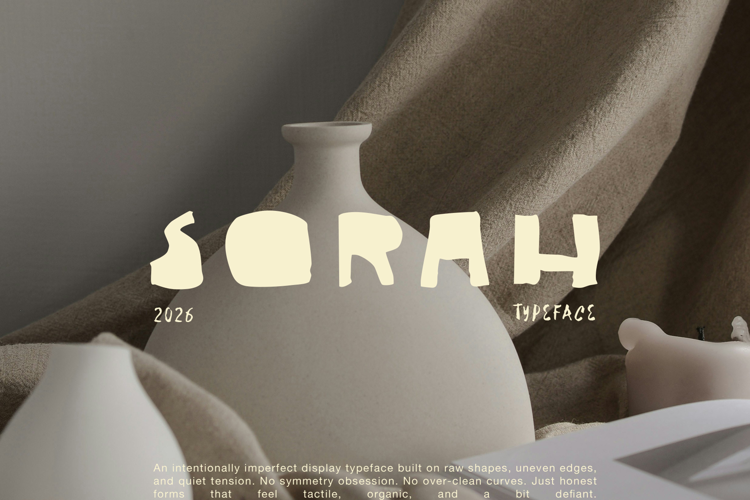
Sorah
An intentionally imperfect display typeface built on raw shapes, uneven edges, and quiet tension. No symmetry obsession. No over-clean curves. Just honest forms that feel tactile, organic, and a bit defiant. Comes with 2 typefaces regular and bold. It needs contrast, not competition. Very useful for your branding needs.